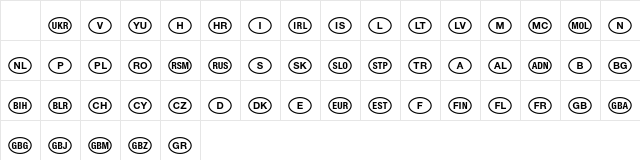
Complete NationalCodes Europe glyph index. Displaying only characters natively supported by NationalCodes Europe font.
NationalCodes uses fixed-width spacing throughout, giving it the structured, systematic character associated with coding environments and technical documentation.